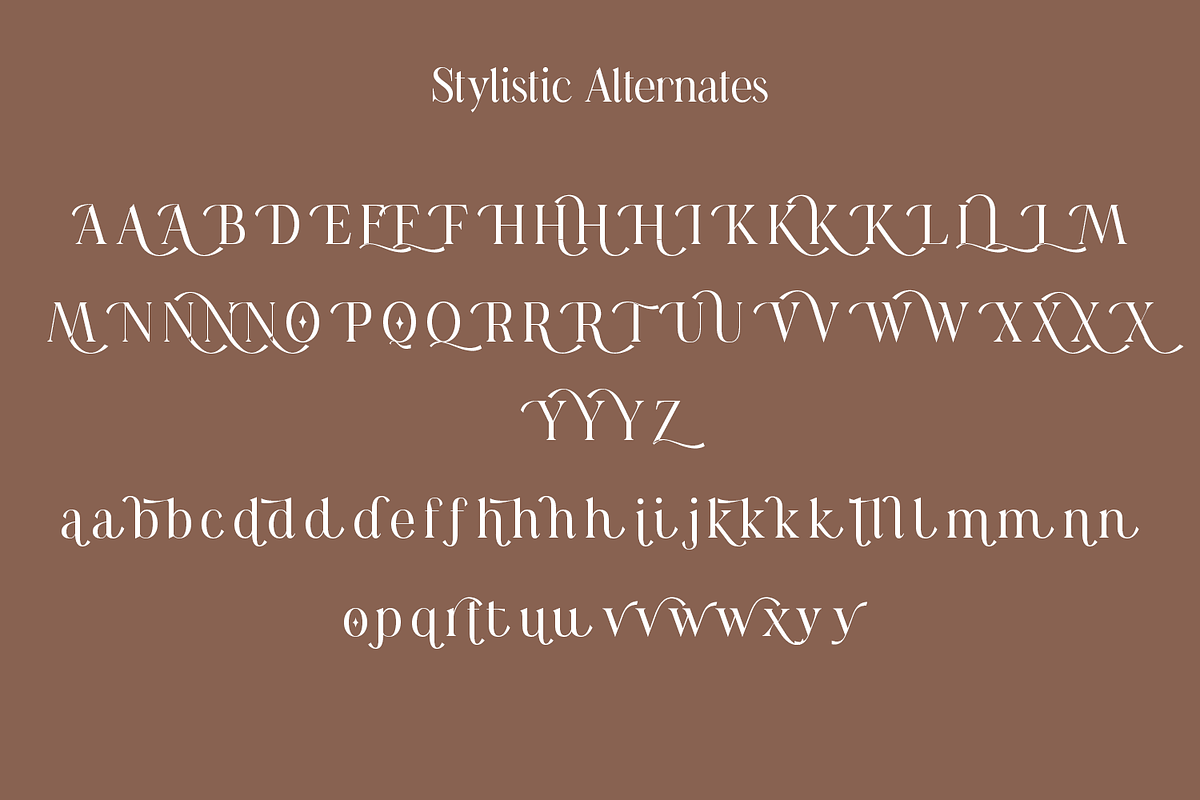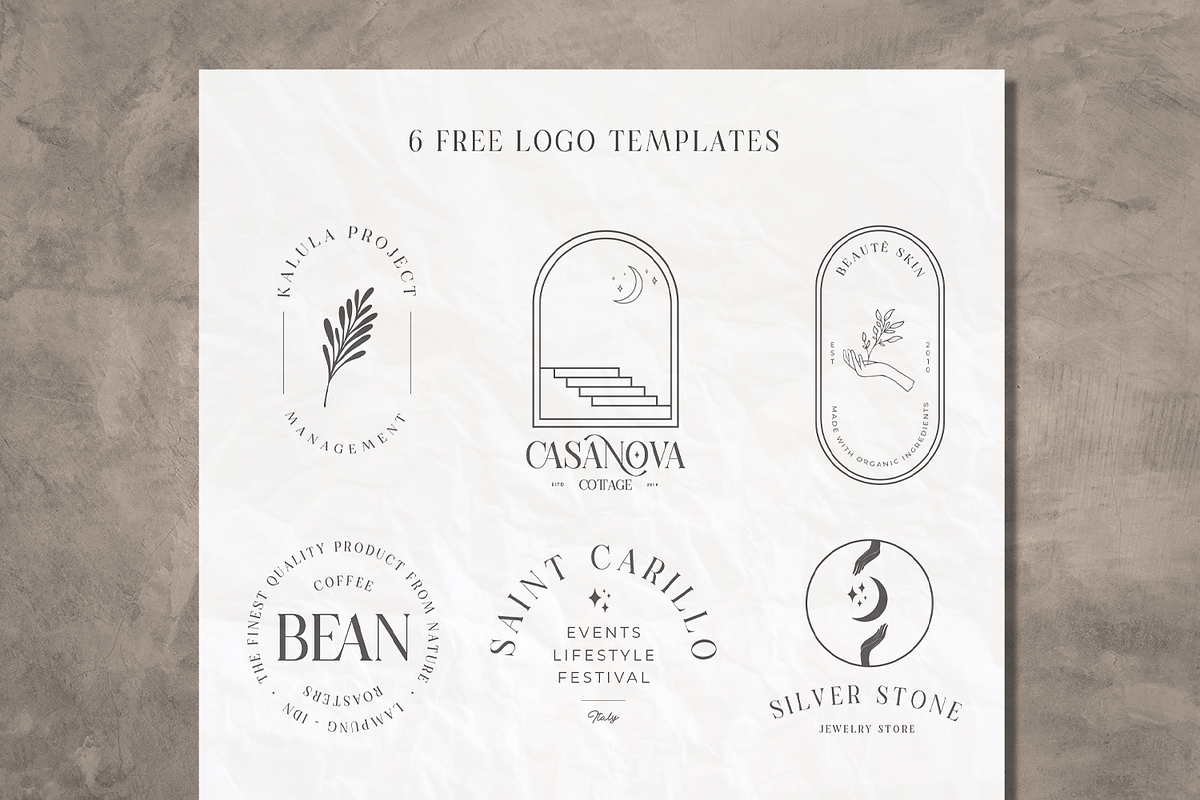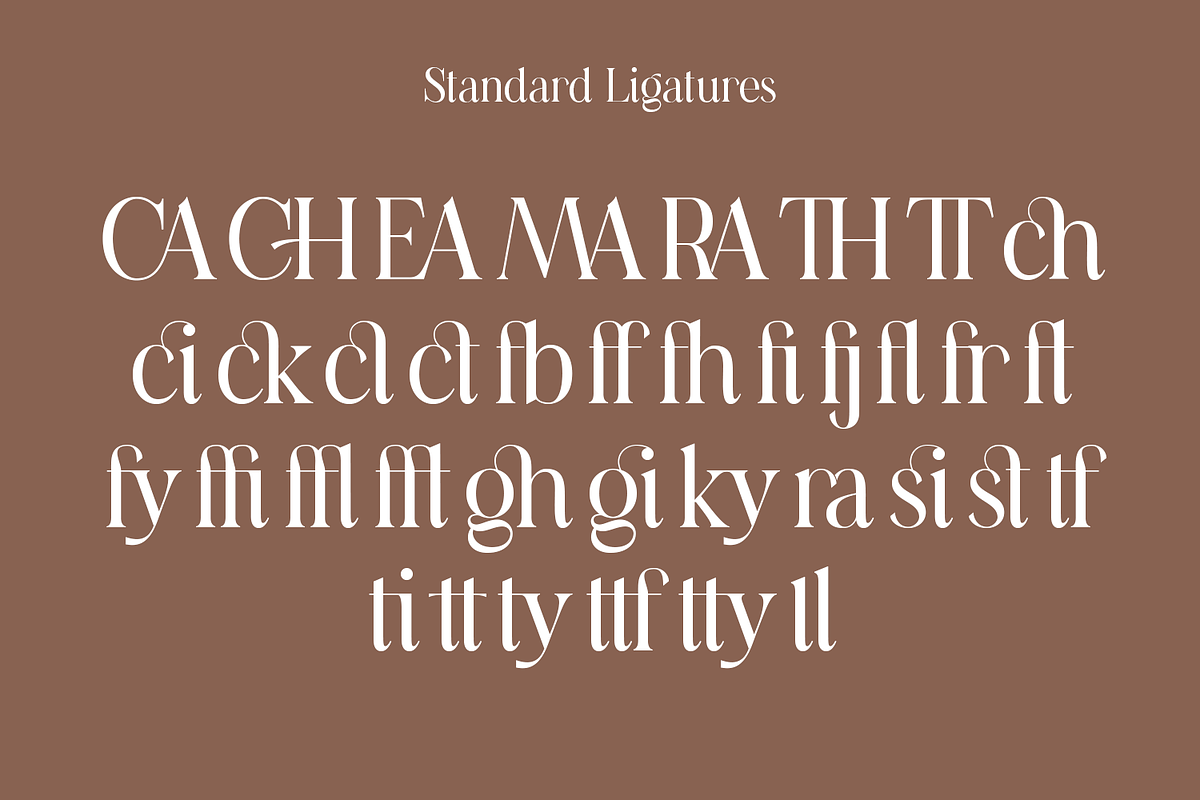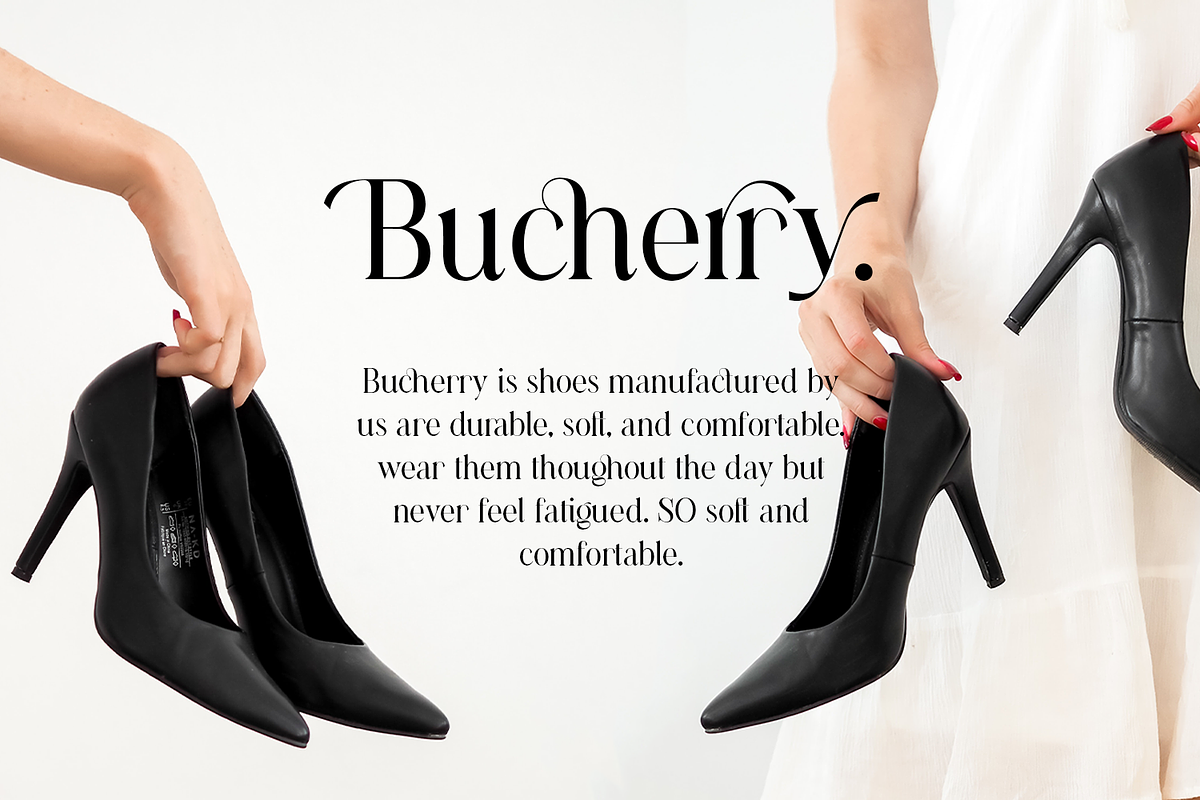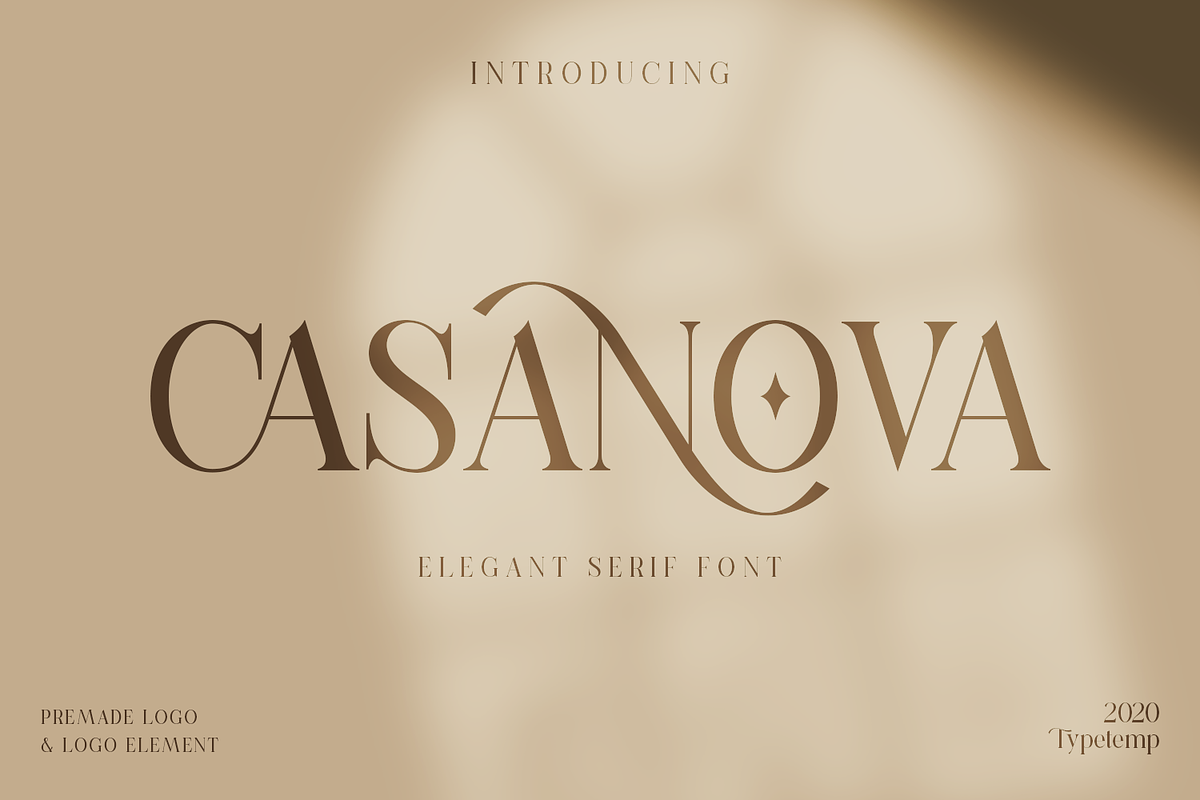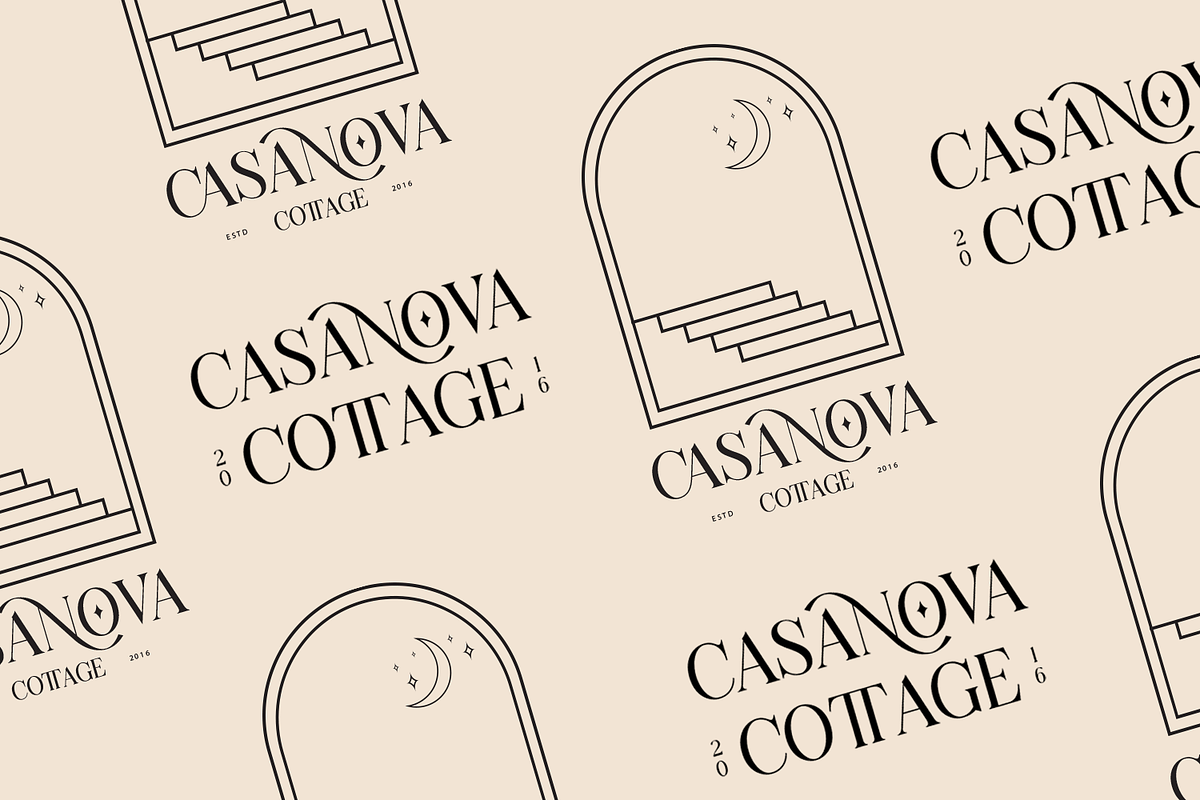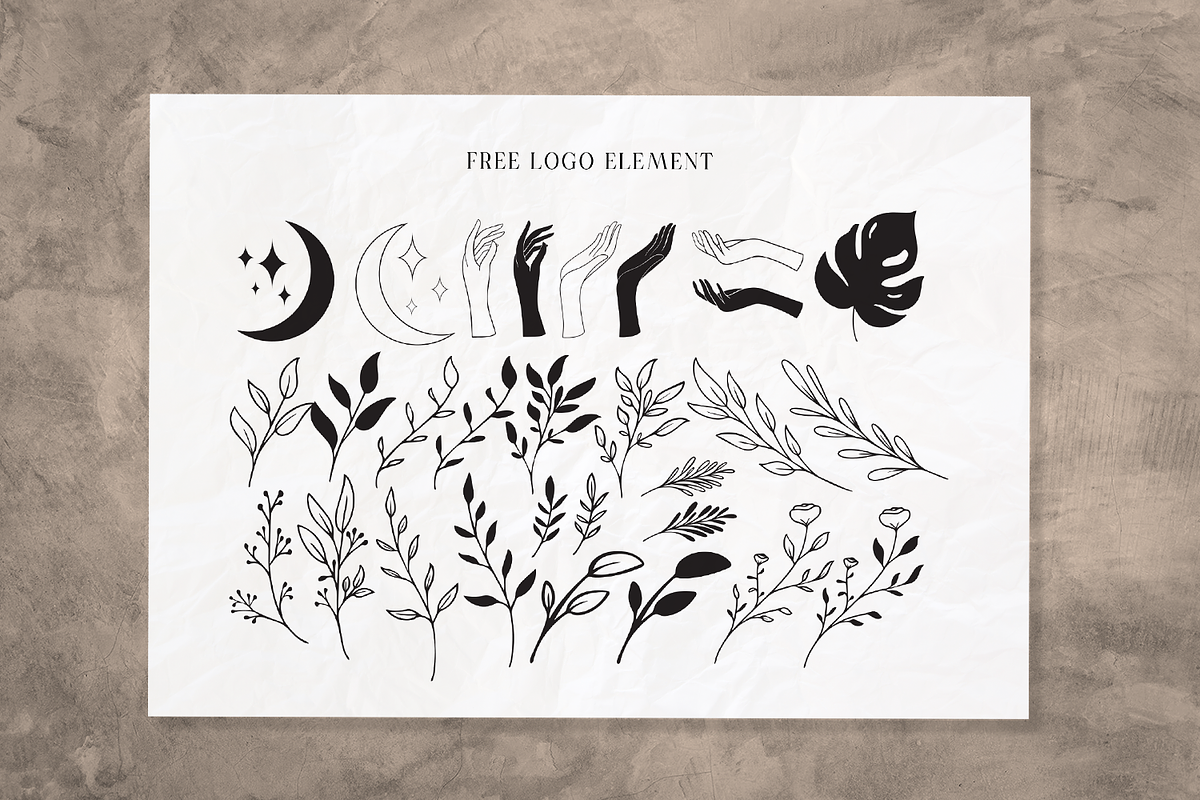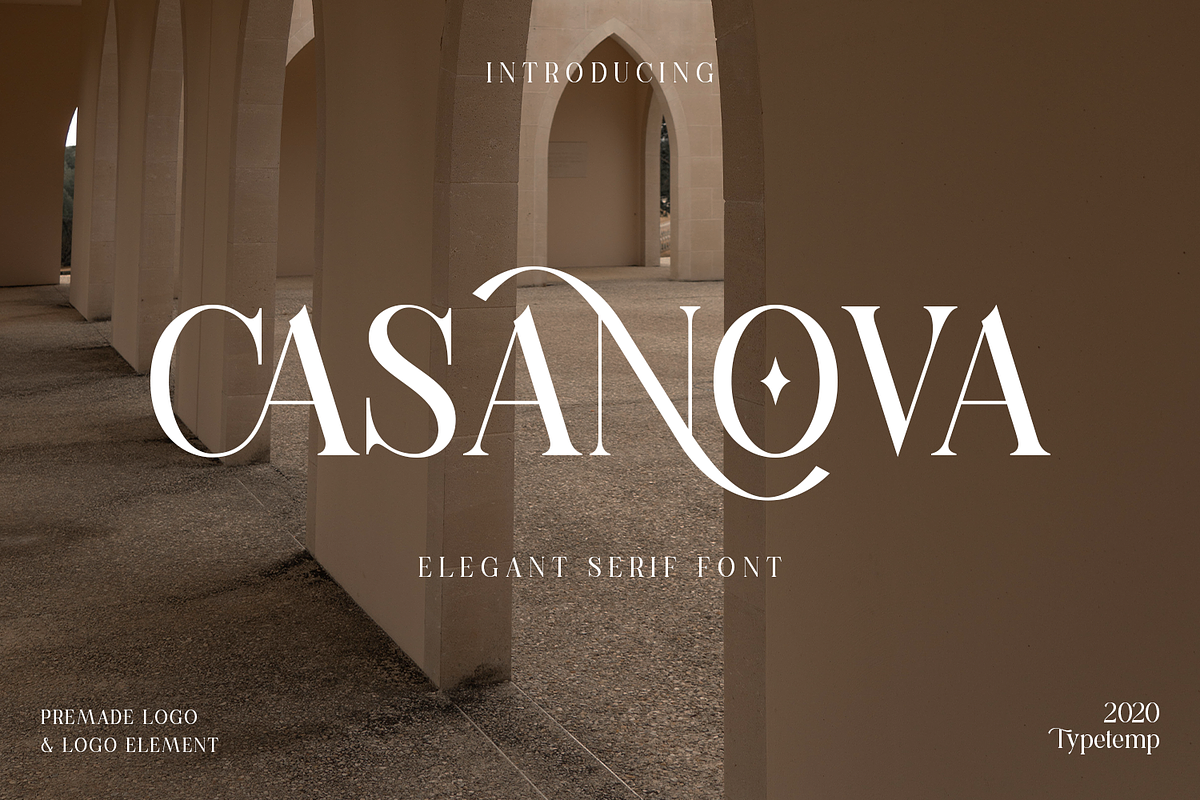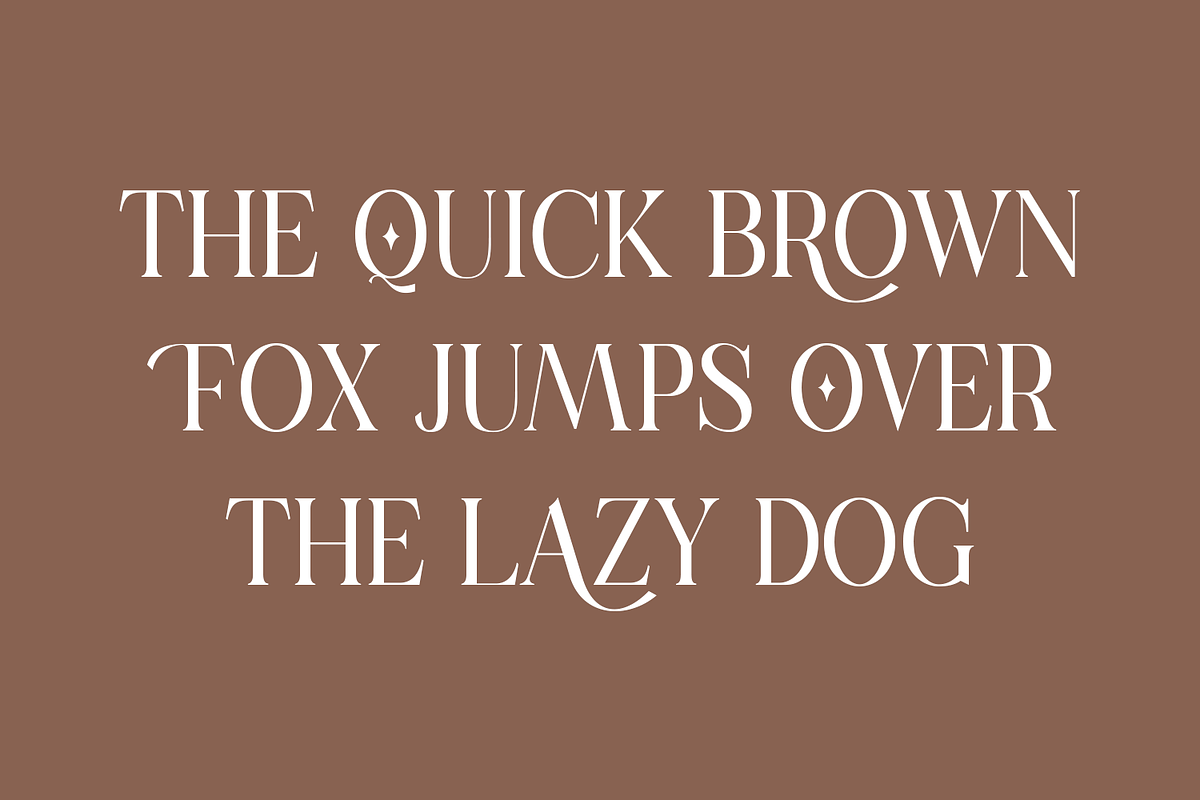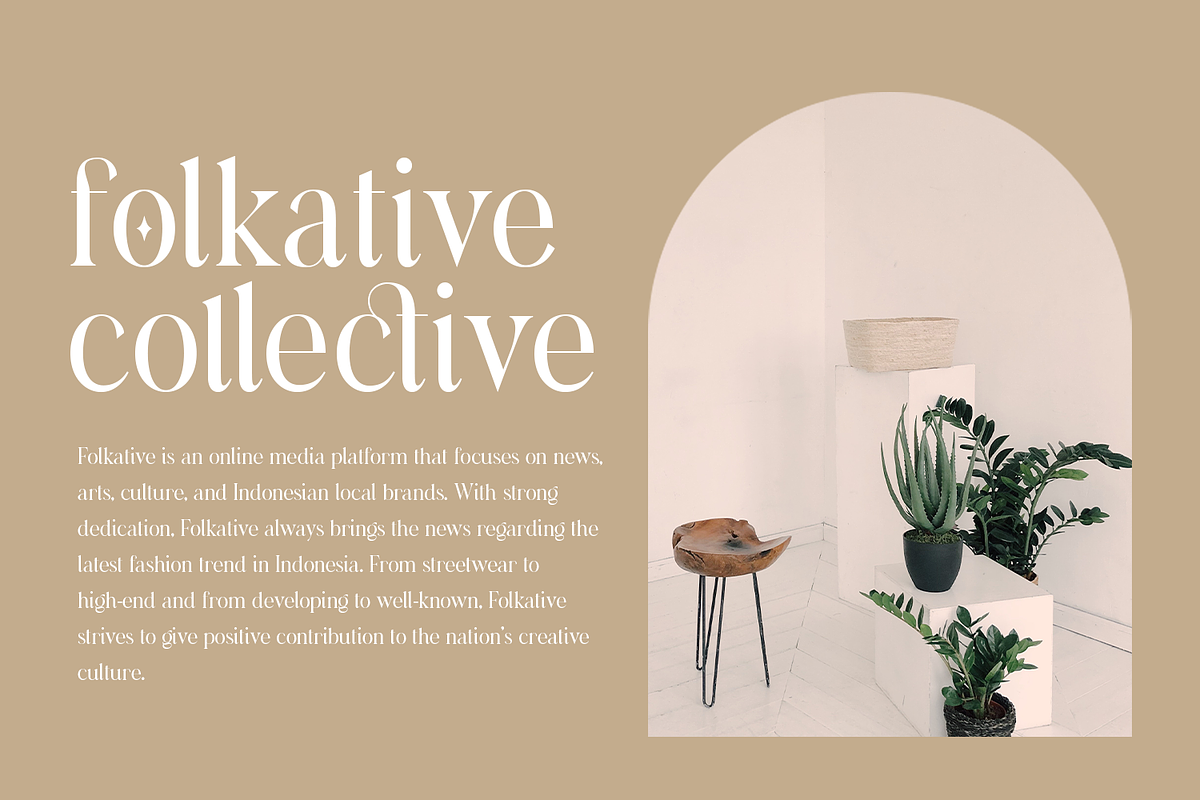
Casanova Elegant Serif Display
Casanova Serif Display a modern-style serif font with alternatives and ligatures that create stunning logos, quotes, posts, blog posts. branding projects, magazine imagery, wedding invitations, and much more
LOVE LOVE LOVE. This is a beautiful and interesting font. It's exactly what I was looking for in a brand font. However, novices be warned: you have to know how to use OpenType fonts to find the letter alternatives. I imagine that was the problem Doll Face was having. If you are a beginner with design or OpenType fonts, be sure to watch some tutorials online. There are plenty on YouTube.